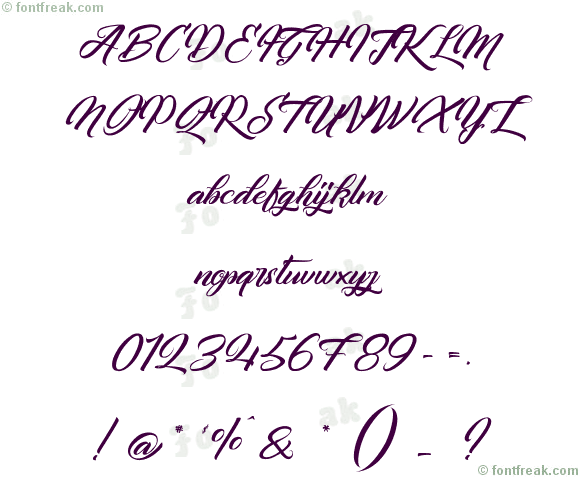
Quantum of Mechanic
Quantum of Mechanic by Agathe M. Joyce is a striking display font that seamlessly blends elegance with a touch of modernity. This freeware font stands out with its unique strokes and artistic flair, making it an ideal choice for eye-catching design projects. The font features a distinct contrast in stroke weight, with graceful thin lines that complement the bolder elements, creating a dynamic visual appeal. The spacing is meticulously crafted, ensuring readability while maintaining a harmonious flow throughout the text. Decorative elements, such as swashes and loops, add an artistic touch that enhances its overall character.
This font is perfect for a variety of creative applications. It's an excellent choice for wedding invitations, where its sophisticated style can evoke a romantic ambiance. For movie posters, Quantum of Mechanic can add a dramatic flair that captures the essence of the film. Restaurant menus can benefit from its elegant appearance, drawing attention to the culinary offerings in a visually appealing way. Additionally, it suits branding materials for boutique businesses, helping to convey a unique identity that stands out in a competitive market.
Targeting graphic designers, small business owners, and content creators, Quantum of Mechanic offers versatility and creativity. Its distinctive style appeals to those looking to make a statement with their design work.